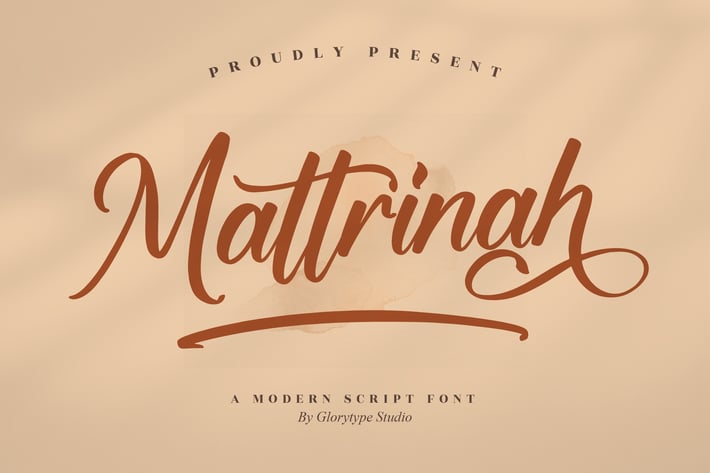
Mattrinah Modern Script Font
Mattrinah is a modern script font that combines classic charm with a contemporary flow. With its bold curves and smooth letter connections, it delivers a perfect balance between elegance and warmth — ideal for designs that want to feel both personal and professional.
Stylish handwritten script with graceful swashes
Clean and balanced letter spacing
Wedding invitations and stationery
Branding and logo design
Product packaging and labels
Greeting cards and quotes
Social media graphics
Editorial and lifestyle projects
Modern elegance with a personal touch — Mattrinah brings expressive charm and natural sophistication to every word.